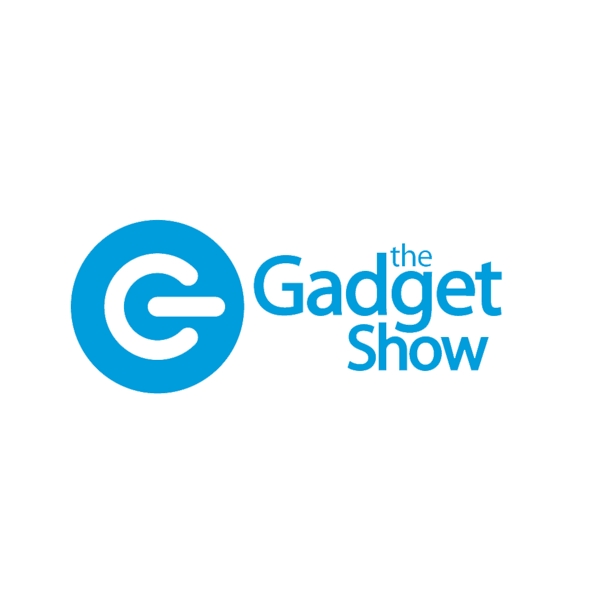
The Gadget Show Font
Fonts in UseThe Gadget Show is a British television series that focuses on consumer technology, featuring reviews, demonstrations, and tests of the latest gadgets and devices. It first aired in 2004 and has since become a popular source of information for tech enthusiasts.
It is likely that Myriad Semi Bold was used to create the title of the show. Myriad is a popular humanist sans-serif font created by Robert Slimbach and Carol Twombly, widely recognized for its use in Apple's products and advertising.